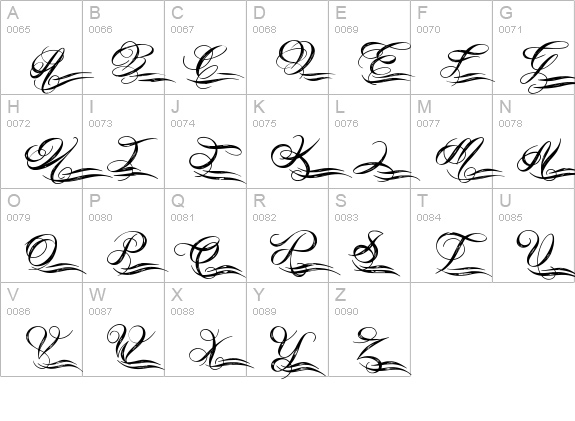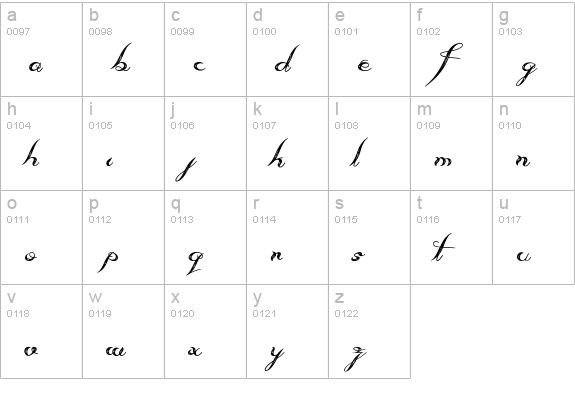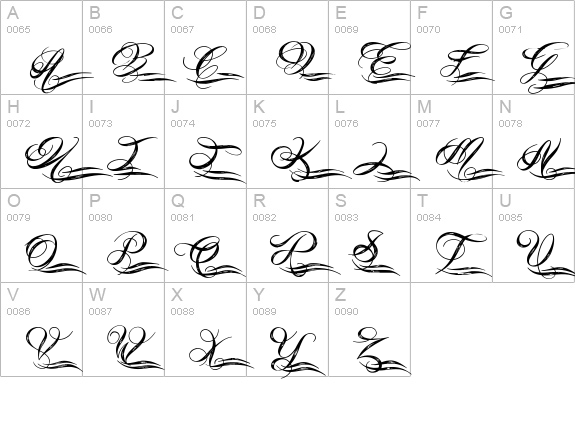
Always Beside You Font Details
Always Beside You font is a modern and stylish typeface that will add a touch of elegance to any design project. With its clean lines and graceful curves, this font is perfect for creating eye-catching headlines, logos, and branding materials. What sets Always Beside You font apart is its versatility. Whether you're designing for print or web, this font will adapt seamlessly to any medium. Its legibility and readability make it ideal for both body text and display purposes. One of the best things about Always Beside You font is that it is free. That's right, you can download this font for free at FontsMarket.com. This means that you can use it in any personal or commercial project without having to worry about licensing fees. The extensive character set of Always Beside You font includes uppercase and lowercase letters, numbers, punctuation marks, and multilingual support. This means that you can use this font in various languages, making it a truly global typeface. So, why wait? Download Always Beside You font today and let its beauty and versatility elevate your designs to new heights. With its free availability at FontsMarket.com, there's no reason not to give this font a try. Always Beside You font will be your faithful companion, always ready to enhance your creative endeavors.